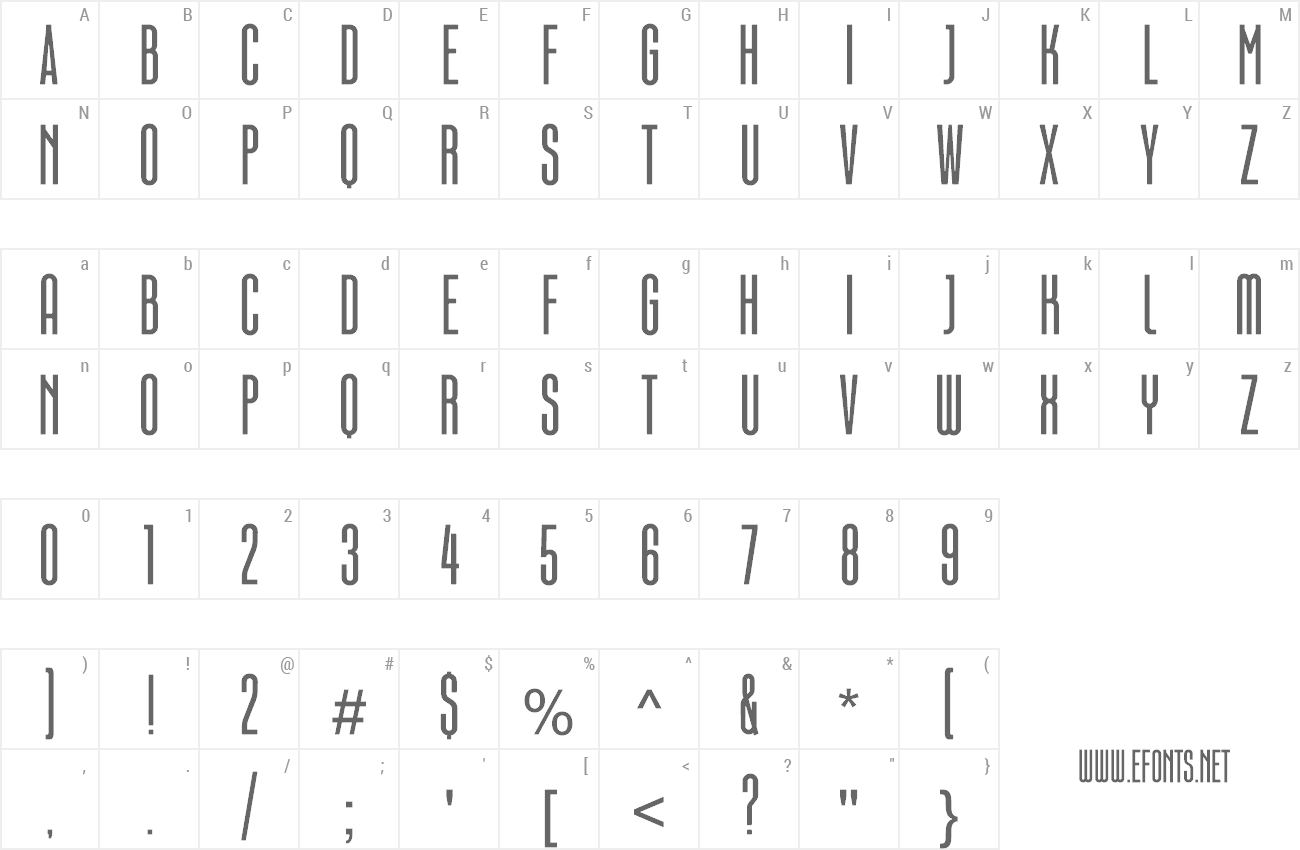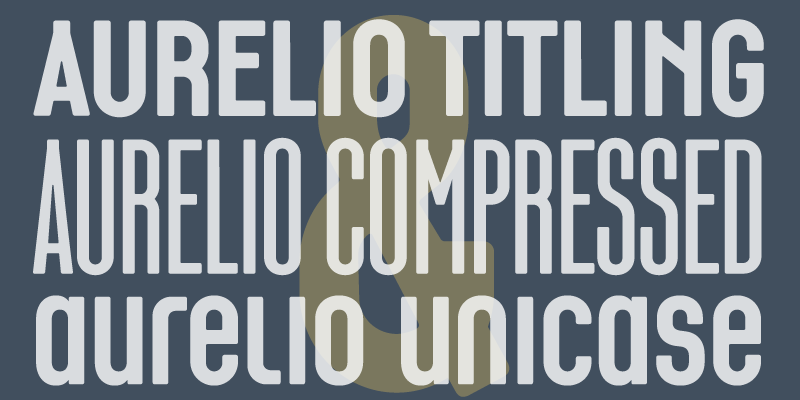
Thanks for downloading AURELIO. We hope you enjoy it!! Aurelio has subtle rounded corners and finishing details that keep it contemporary while paying homage to design features from the Industrial Age types. Originally, it was created as a logotype for the �ltima Forma design studio in the 1990�s. The compressed version resembles the sans serif wood types of the 19th Century, and the unicase font is a Bradbury Thompson's Alphabet 26 reboot. By Lucas Franco & Claudio Rocha, 2018 If you'd like to access the full fonts, including a range of alternates and ligatures, please check it out here: https://nowtype.net/aurelio/ Check out also our other typefaces here: https://nowtype.net All the best, Lucas and Claudio |